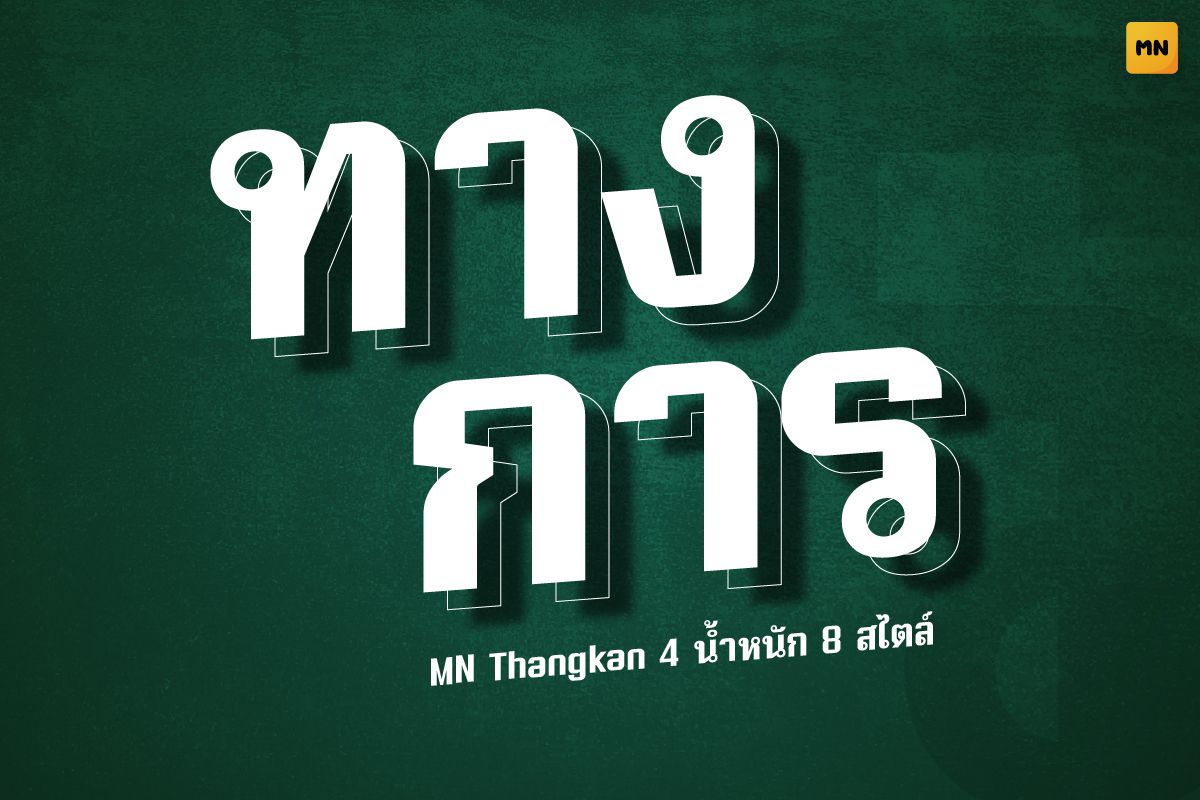
MN Thangkan Italic
A formal Thai typeface with strong geometric structure and confident strokes. Its bold, clean lines make it perfect for official documents, signage, corporate designs, or headlines that require clarity and authority.